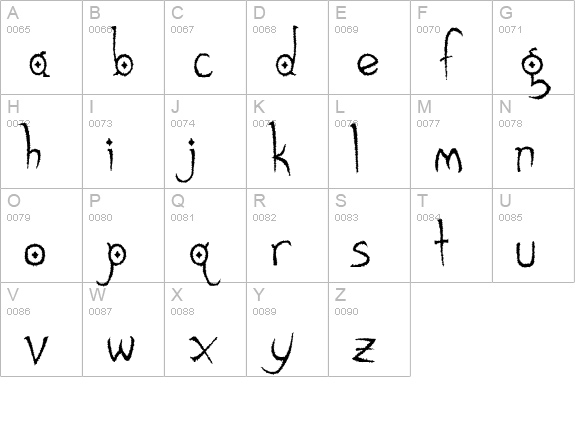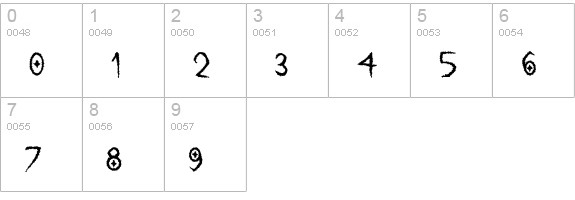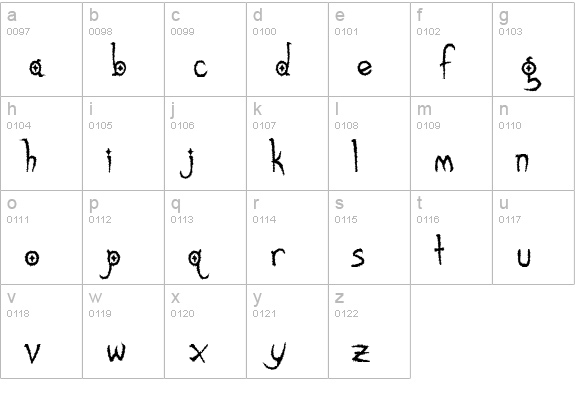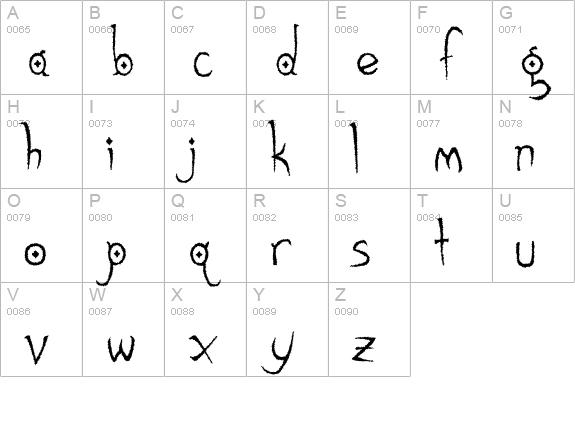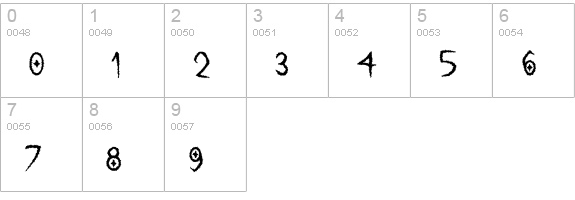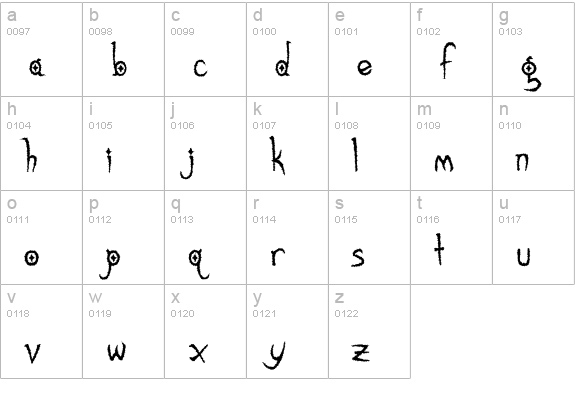
Gothic Hijinx Rough Font Details
Gothic Hijinx Rough font is a bold and edgy typeface that exudes a gothic charm with its rough texture and intricate details. Perfect for adding a touch of mystery and drama to your designs, this font is ideal for creating eye-catching headlines, posters, and branding materials. Its unique rough edges give it a rugged and rebellious look that sets it apart from traditional gothic fonts. What makes Gothic Hijinx Rough font even more appealing is that it is available for free download at FontsMarket.com. This means you can easily access this captivating font and start using it in your projects without any cost. Whether you're a designer looking to add a touch of darkness to your creations or a content creator in search of a font that stands out, Gothic Hijinx Rough font is sure to meet your needs. Download it today and unleash your creativity with this striking typeface.